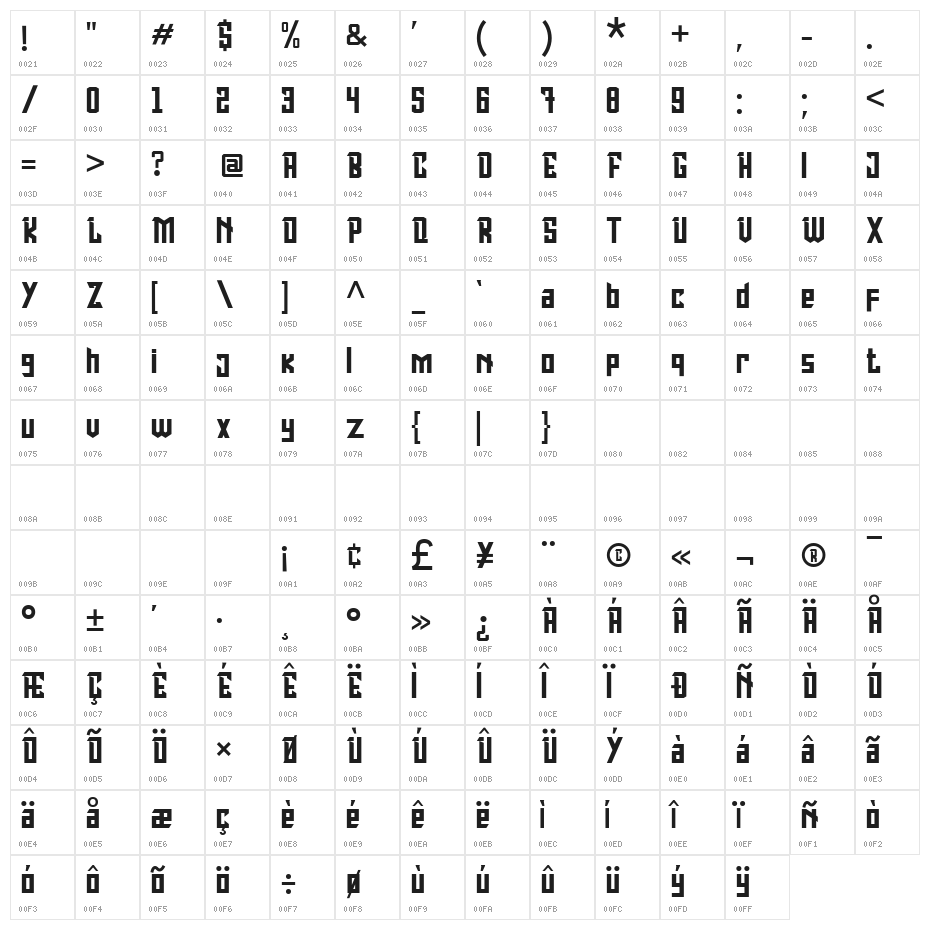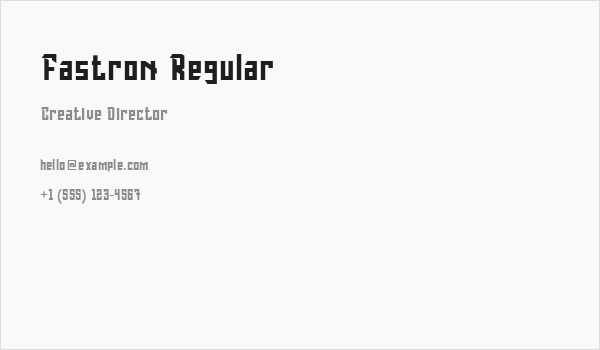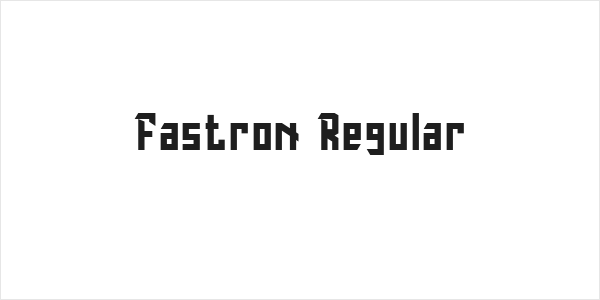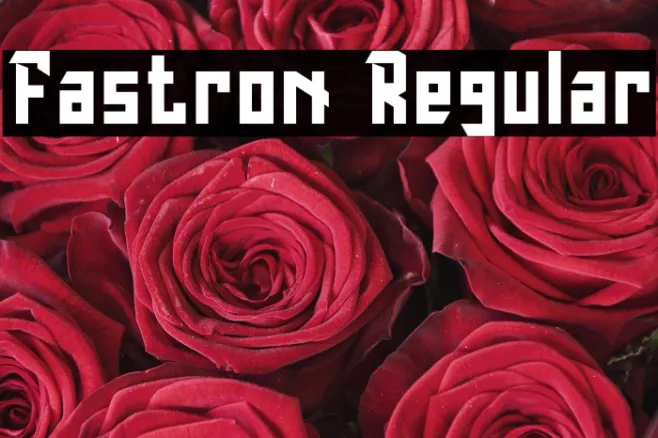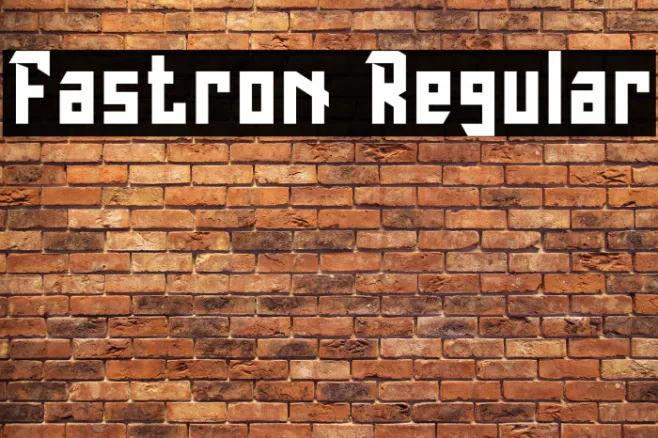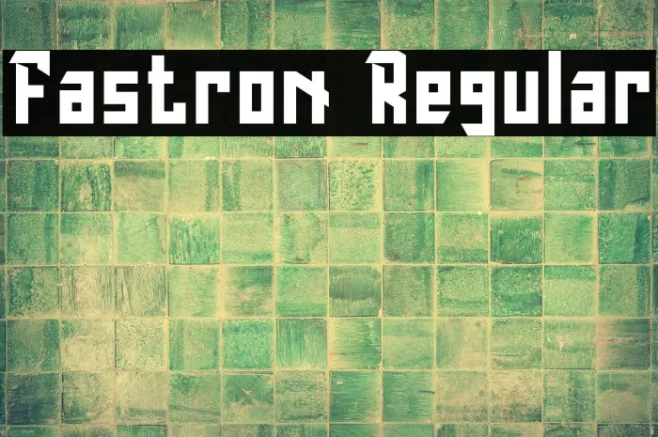
Fastron Regular Font
Fastron Regular Description
This font features a bold, geometric design with sharp angles and a futuristic aesthetic. The uppercase and lowercase letters maintain a consistent style, characterized by their angular cuts and solid structure. The numbers and special characters follow the same design principles, ensuring uniformity across all glyphs. This font's unique style makes it stand out, with a strong presence that commands attention. Its design is reminiscent of digital or sci-fi themes, making it suitable for projects that require a modern and edgy look.
| Overall Style | Futuristic, Modern |
| Proposed Projects | Ideal for sci-fi themed designs, video game graphics, tech company branding, and modern posters. |